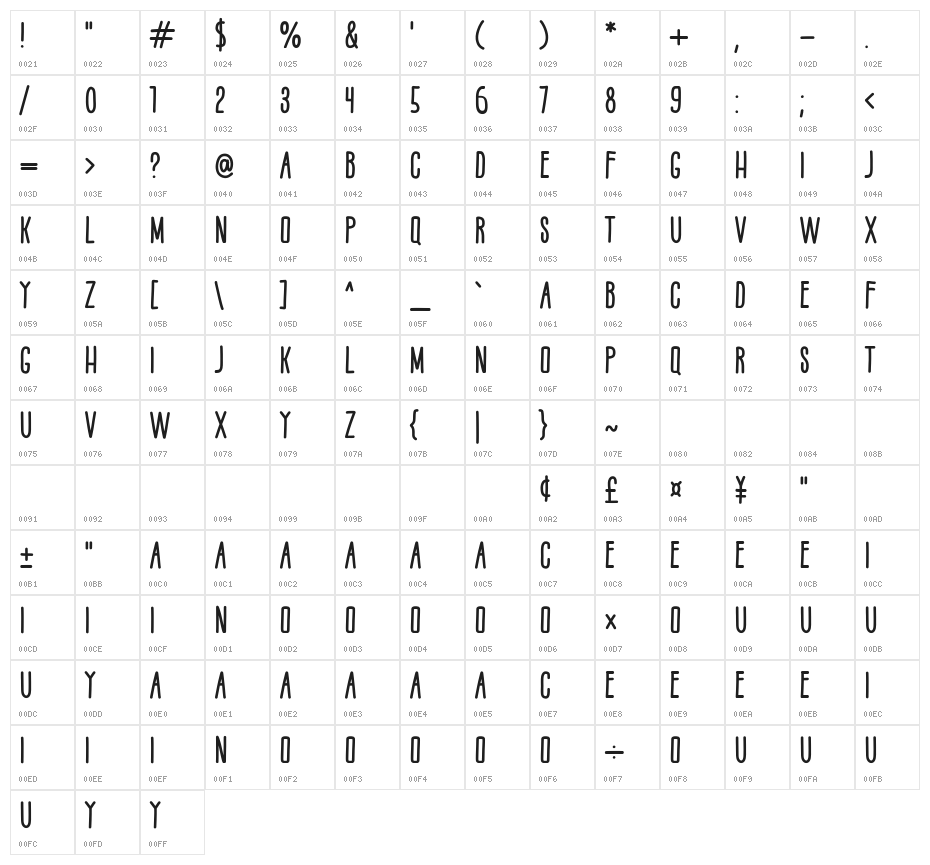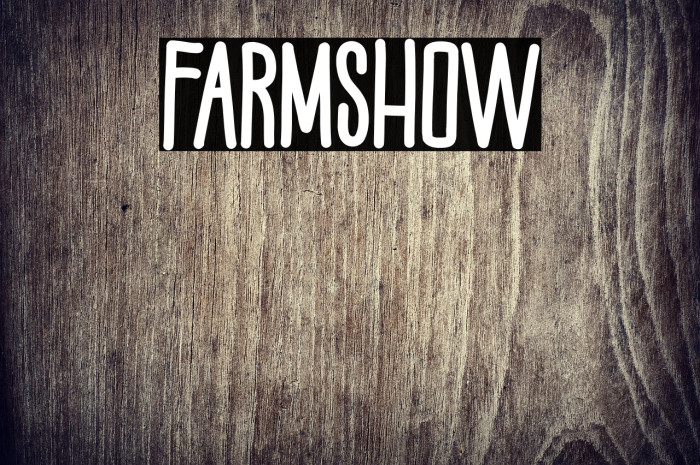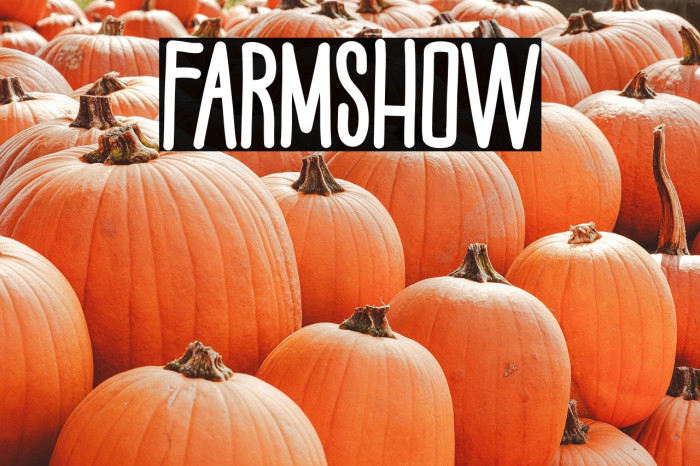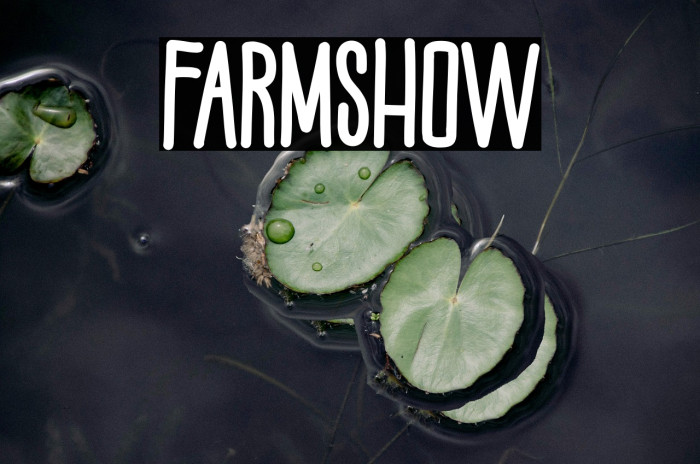
Farmshow Font
Farmshow Description
This font features a playful and bold style with rounded edges and a slightly condensed form. The uppercase and lowercase letters maintain a consistent height, giving it a uniform appearance. The numbers and special characters are designed to match the overall aesthetic, ensuring a cohesive look across all elements. The strokes are thick, providing a strong visual impact, while the rounded corners add a friendly and approachable feel. This font is versatile, suitable for various design projects that require a touch of personality and flair.
| Width | Condensed |
| Overall Style | Playful |
| Proposed Projects | Ideal for children's books, playful branding, posters, and social media graphics. |